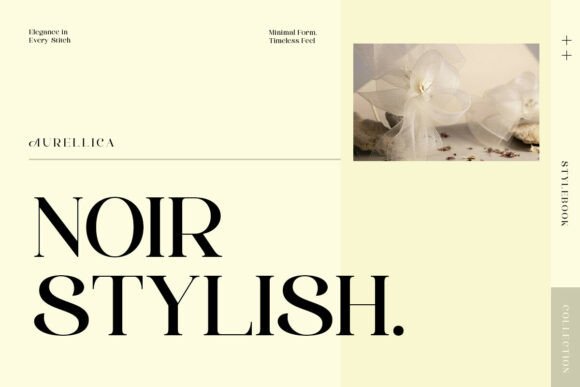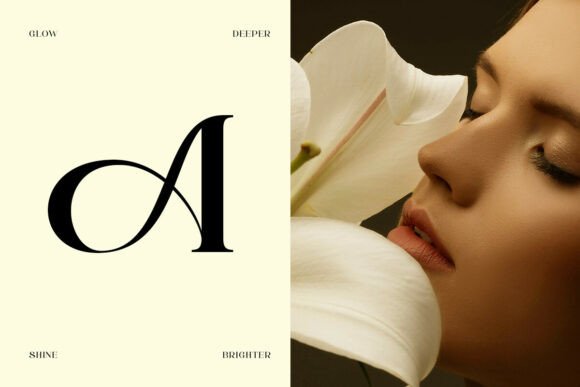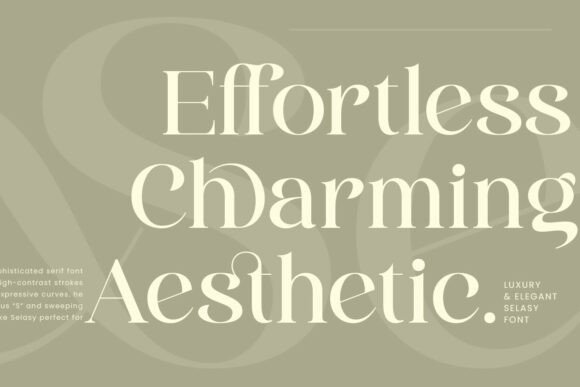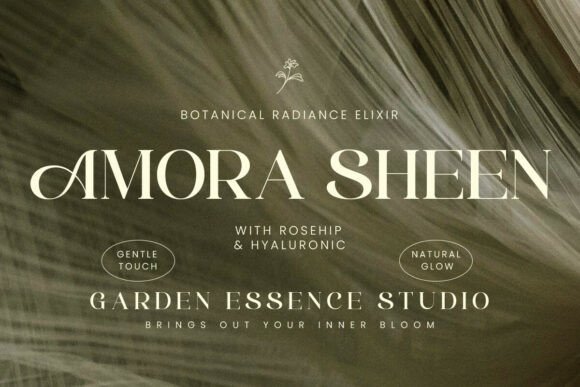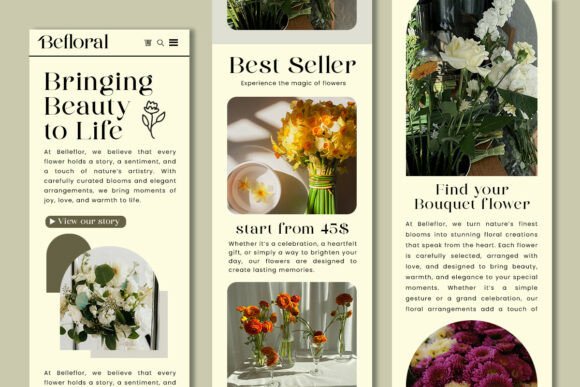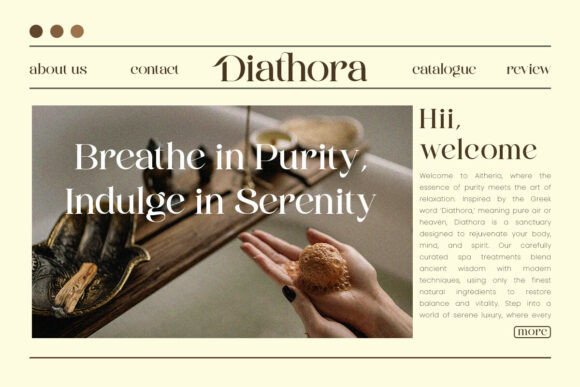
Introduction to Selasy Regular Font
Selasy is a refined serif typeface that blends timeless beauty with modern sophistication.
Designed to elevate your design work with effortless class, the Selasy font features graceful ligatures, sharp terminals, and a fluid rhythm that draws the eye and holds attention Whether youโre working on editorial layouts, branding presentations, packaging, logo, or wedding stationery, Selasy adds a sense of polished elegance to every project.